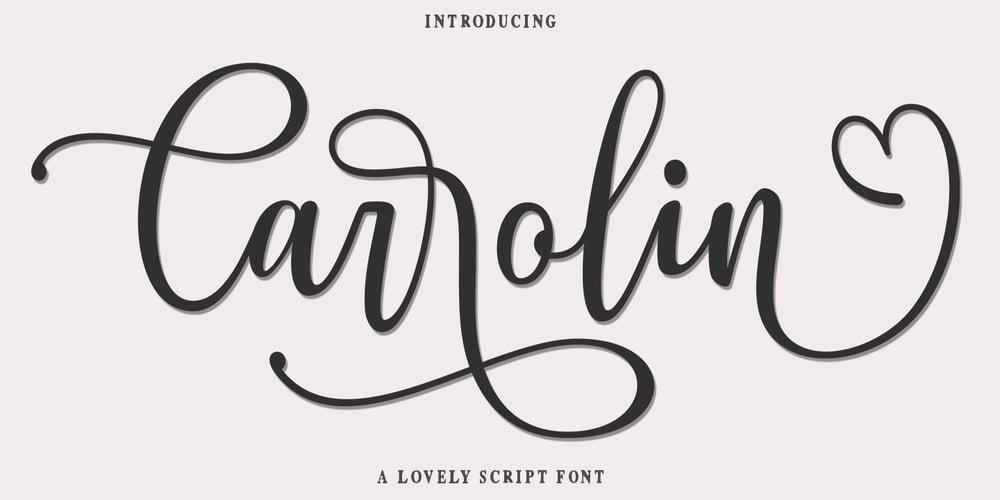
Carrolin Script Font Family was designed by Mur Zani and published by Zane Studio. Carrolin Script contains 1 styles and family package options. Carrolin Script is a new modern script font with an irregular base line, making it look trendy and feminine. Carrollina script looks beautiful in wedding invitations, thank you cards, quotes, greeting cards, logos, business cards, and more. Including beginning and end letters, alternatives and support for many languages. To enable the OpenType Stylistic alternative, you need a program that supports OpenType features such as Adobe Illustrator CS, Adobe Indesign & CorelDraw X6-X7, Microsoft Word 2010 or newer versions. There are additional ways to access alternatives / swashes, using Character Maps (Windows), Nexus Fonts (Windows), Font Books (Mac) or software programs such as PopChar (for Windows and Mac). How to access all alternative characters: https: //www.youtube.com/watch? v = Go9vacoYmBwhttps: //www.youtube.com/watch? v = XzwjMkbB-wQhttps: //www.yo If you need help or have questions, let me know. I am happy to help. Thank you.